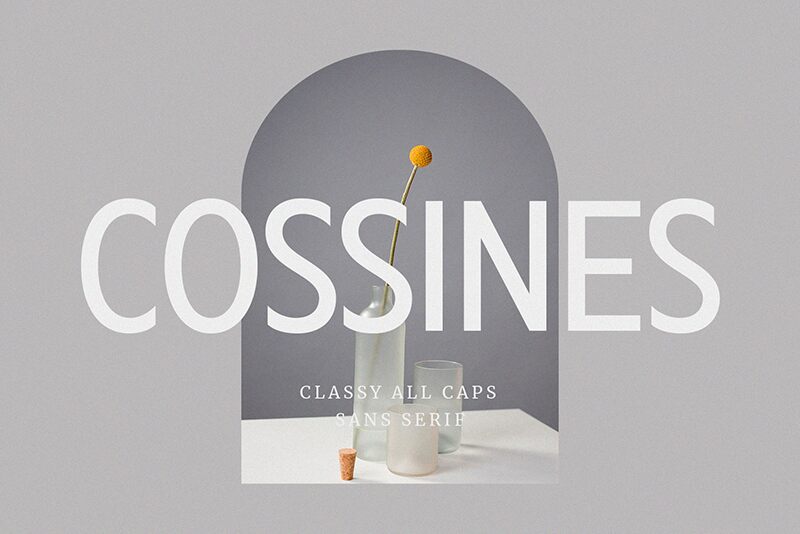
Cossines font by BrandSemut. This bold and modern sans-serif typeface captivates with its clean lines, geometric forms, and high contrast design. Its minimalistic approach conveys a professional mood, making it a versatile choice for various projects.
Cossines is perfect for logo design, branding materials, advertisements, posters, and any other creative projects you have coming up! It’s also great for magazines (both off and online), website headers, clothing logos and so much more!